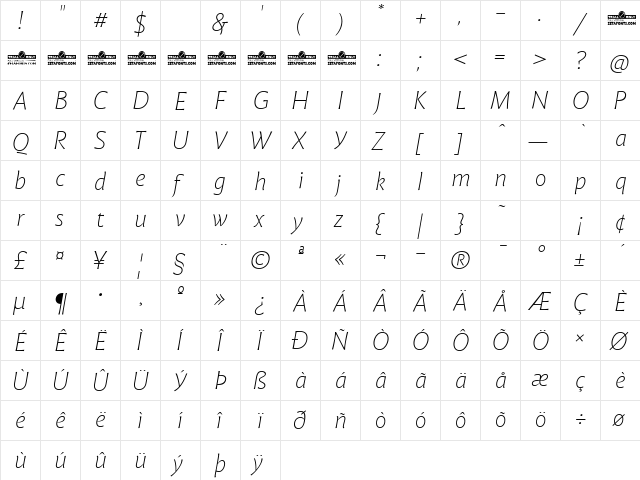
Malik Trial Extralight Italic
| Foundry | Zetafonts |
| Designer | Andrea Tartarelli |
Design Context for Malik Trial Typeface
Malik Trial offers clean, dependable letterforms without strong stylistic allegiance, making it a practical choice for designers who need flexibility. Its italic angle brings a sense of urgency and motion to the letterforms. The delicate stroke weight brings airiness and refinement to layouts.